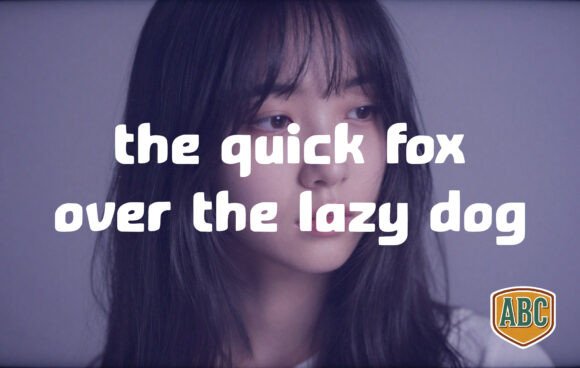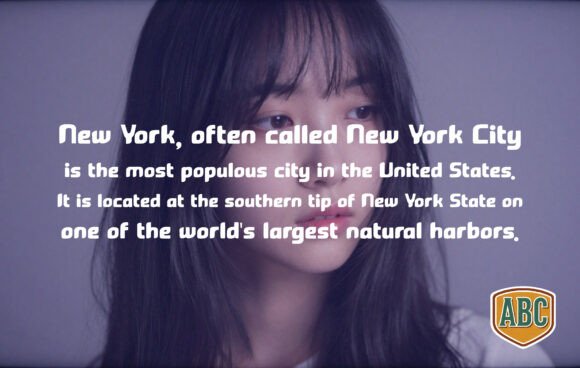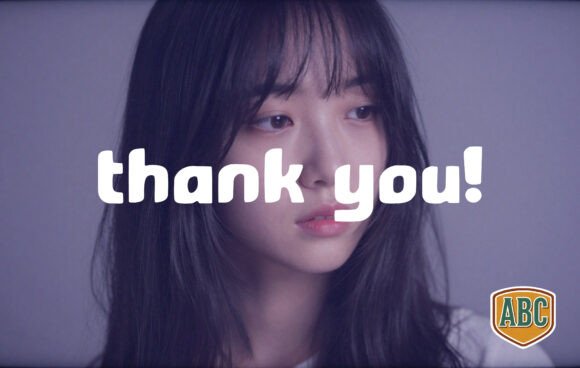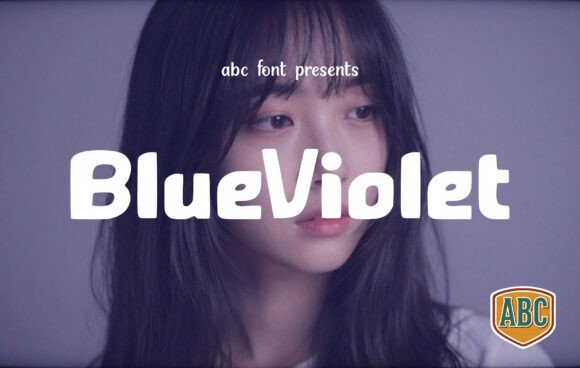
The BlueViolet Font: A Friendly and Approachable Display Font
I’ll never forget the design project that led me to discover the BlueViolet font. I was working on a branding campaign for a youth-focused fashion brand, and I was struggling to find the perfect font that would resonate with their target audience. The client wanted something modern, playful, and approachable, but also clean and professional. After hours of searching, I stumbled upon BlueViolet, and it was love at first sight! ✨
- ✅ The soft, rounded silhouette of BlueViolet is perfect for creating a friendly and approachable vibe.
- ✨ The thick, blocky letterforms with smooth terminals give the font a clean and modern feel.
- ✅ The stable, upright axis ensures that the font remains legible even at larger sizes.
- ✅ The playful proportions and heavy fill make BlueViolet perfect for headlines and titles.
While BlueViolet is an amazing font, it’s not perfect. Here are a few quirks to keep in mind:
- ⚠️ The font may not be suitable for body text or smaller sizes, as it can become too bold and overpowering.
- 🤔 Some users may find the font too playful or childish for certain projects.
- Take advantage of OpenType features like glyphs and stylistic alternates to add more personality to your design.
BlueViolet was designed with the goal of creating a friendly and approachable display font that would resonate with young audiences. The designer, inspired by the playfulness of childhood, aimed to create a font that would evoke a sense of modern clarity and effortless warmth. The result is a font that’s perfect for youth-focused branding, playful product packaging, mobile app headers, and vibrant lifestyle marketing banners.
A: While BlueViolet is an amazing font, it’s not ideal for body text or smaller sizes. It’s best used for headlines, titles, and short paragraphs.
A: Yes, BlueViolet supports OpenType features like glyphs and stylistic alternates, which can be used to add more personality to your design.